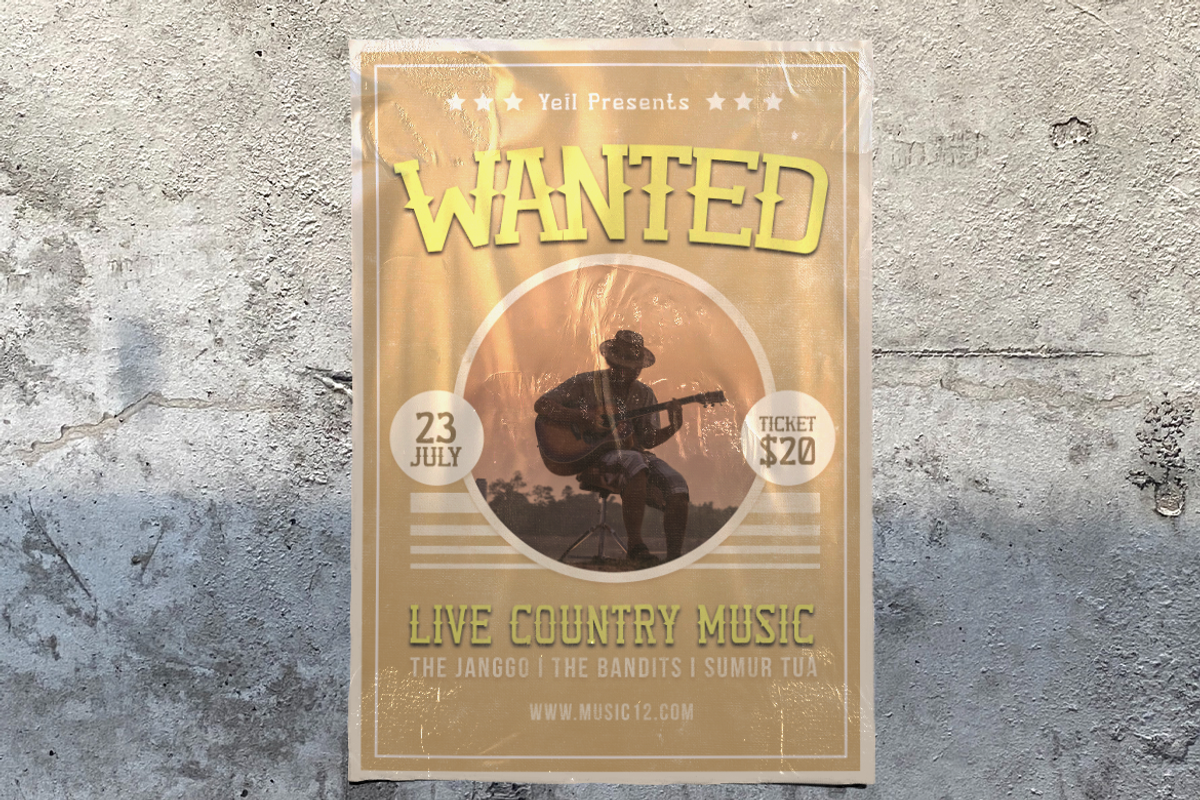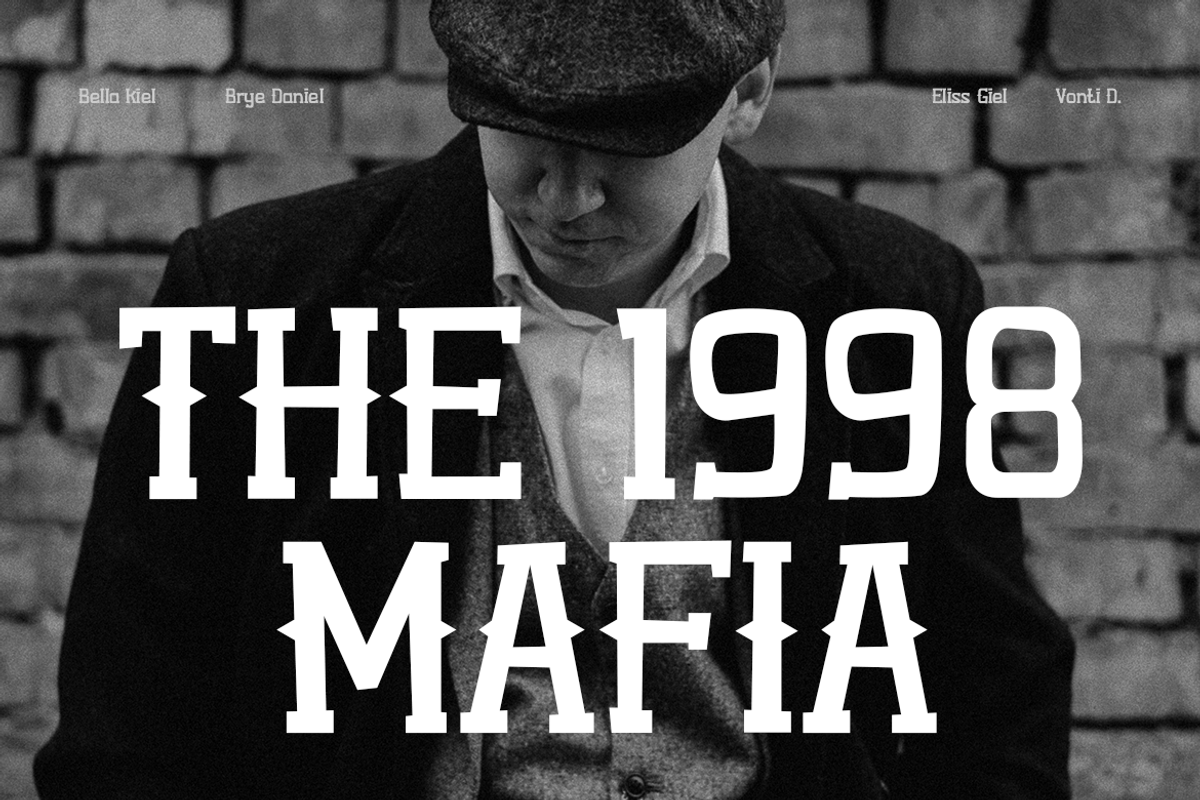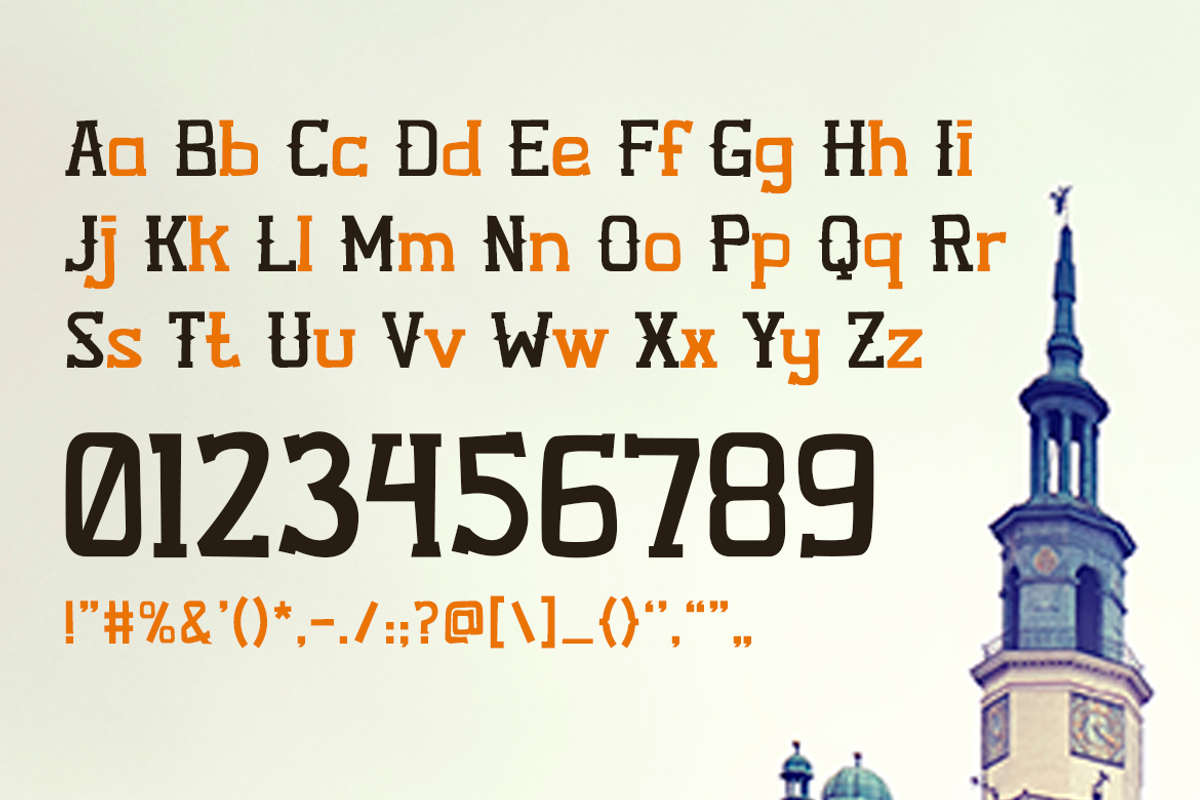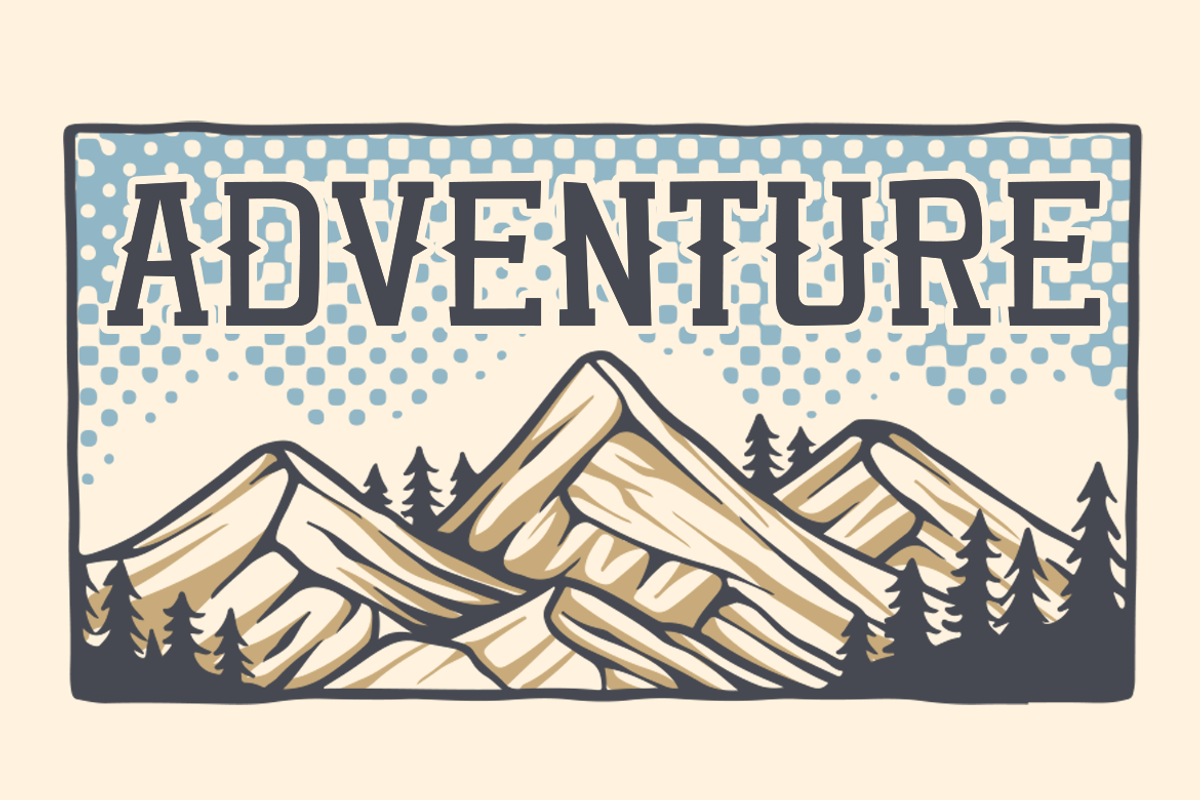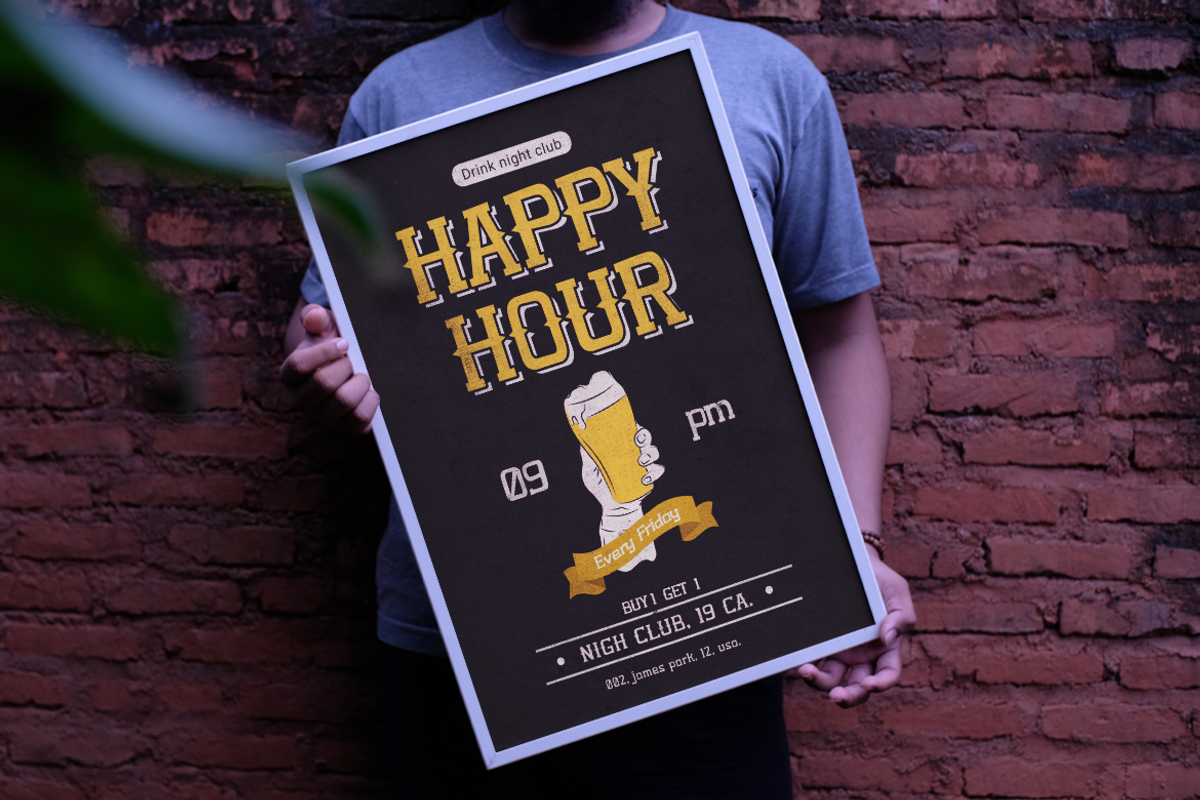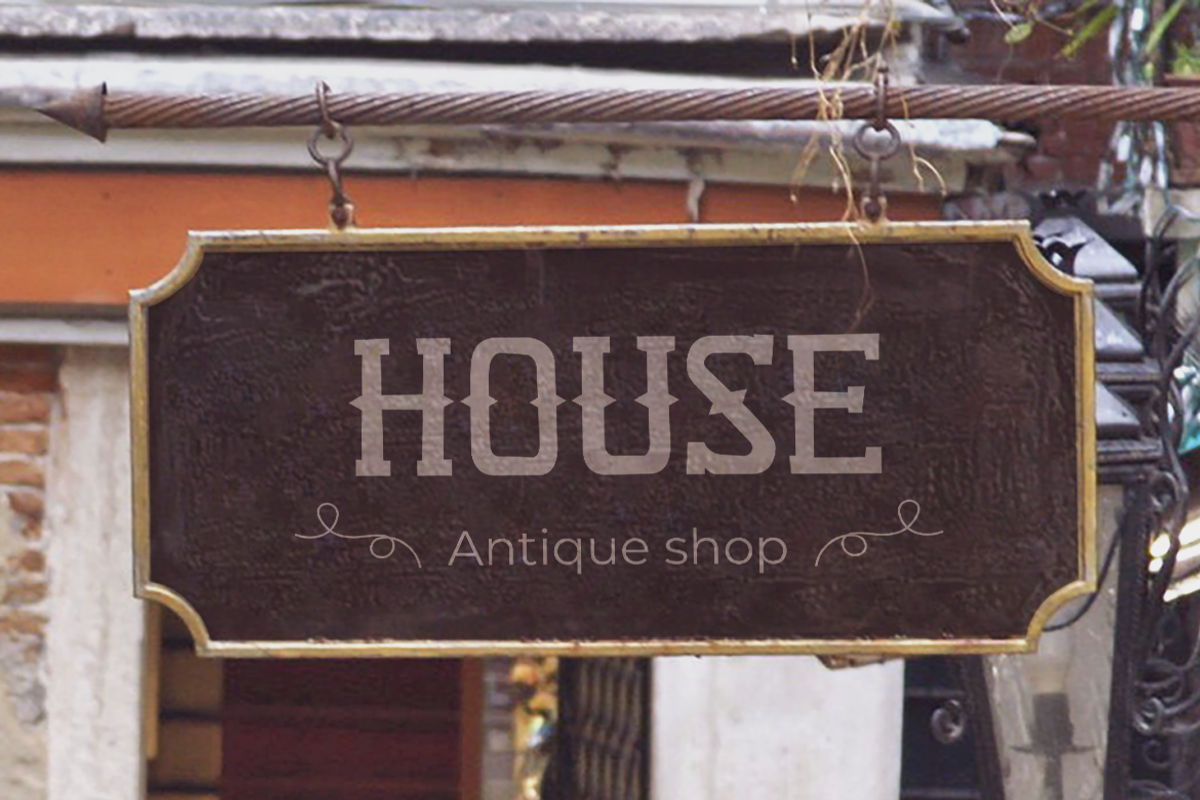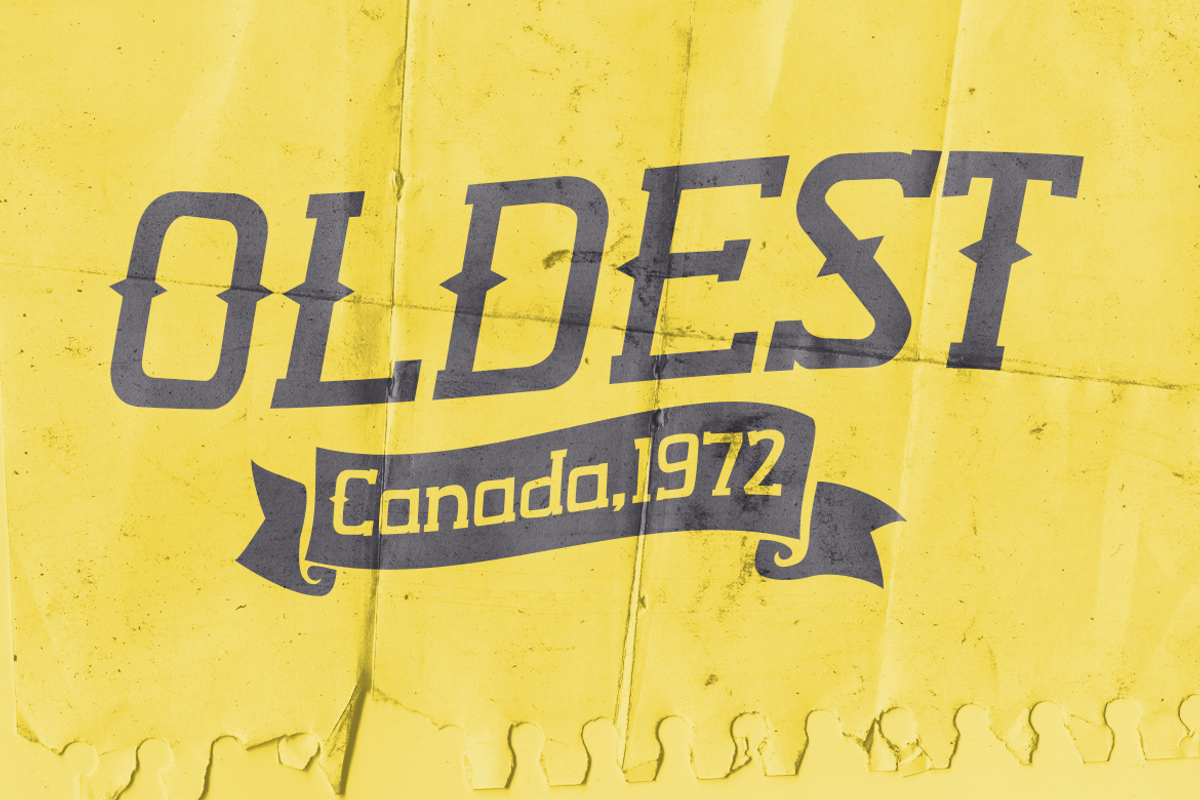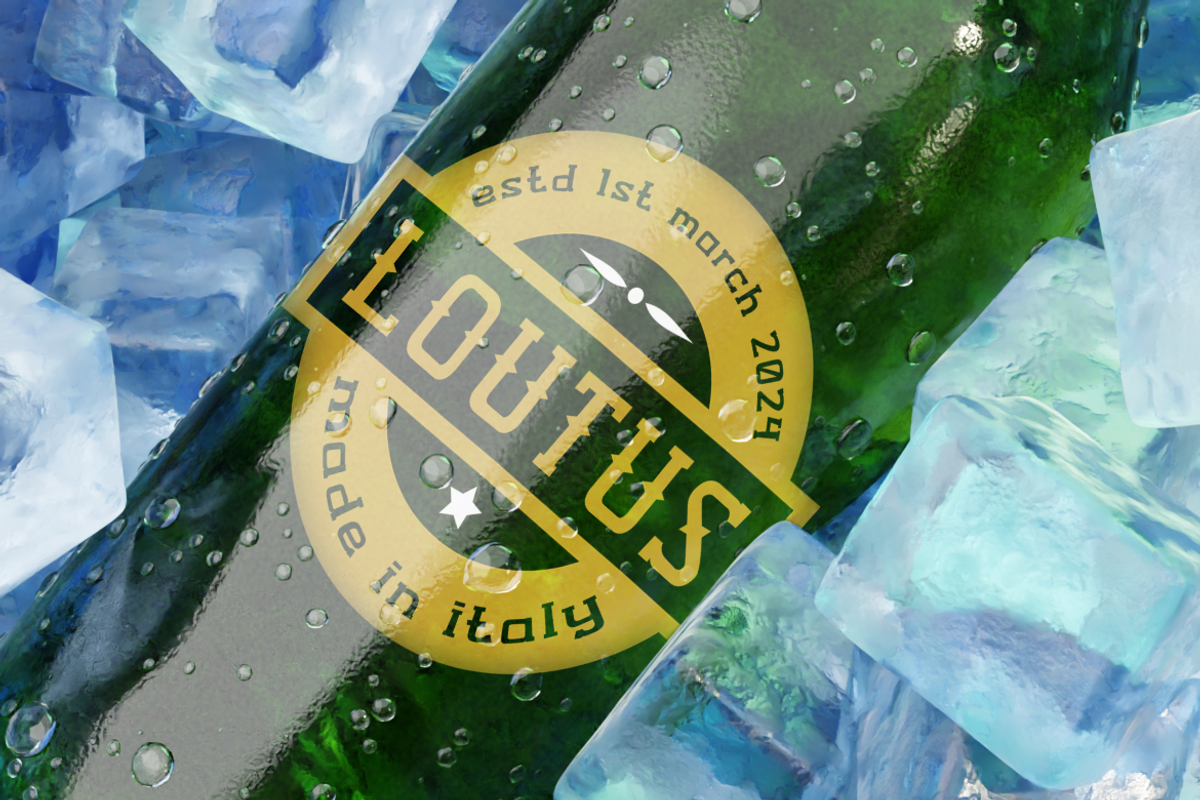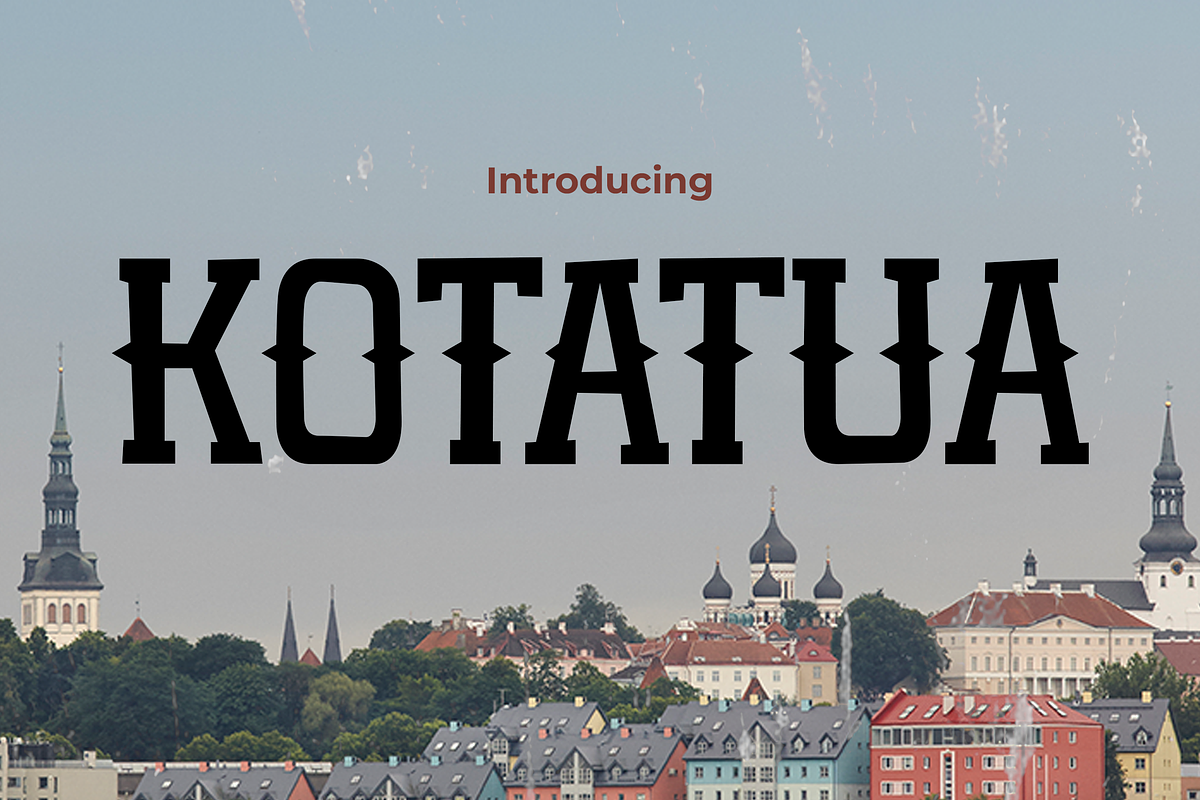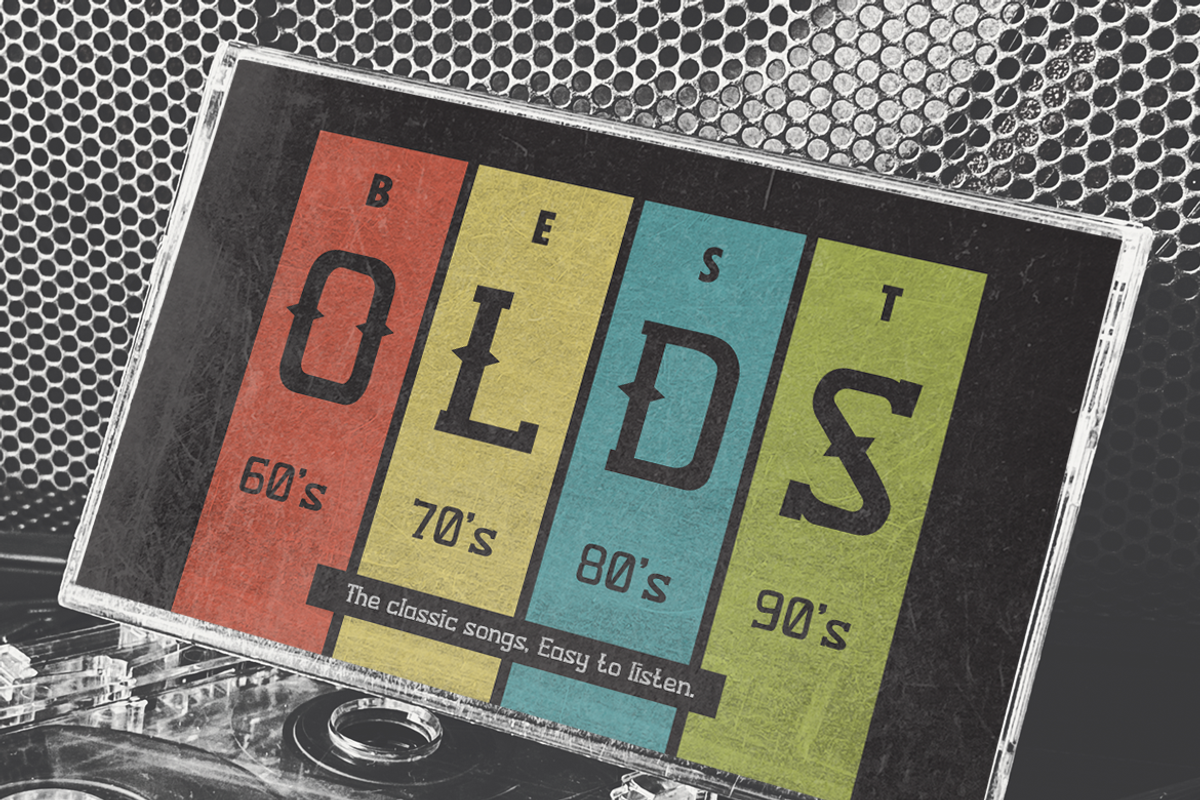
KOTATUA
KOTATUA Font – Vintage Expedition Typography
Dive into the nostalgic journey of KOTATUA Font, where the essence of vintage charm intertwines with the spirit of adventurous masculinity. This font exudes a rugged yet refined aura, reminiscent of an era when exploration and discovery were at the forefront of every man’s ambition. With its bold strokes and classic design elements, KOTATUA Font transports you to a time of bold explorers and daring adventurers, infusing your projects with an air of vintage authenticity and masculine allure. Whether you’re crafting labels for artisanal products, designing outdoor-themed posters, or creating vintage-inspired branding, KOTATUA Font adds a touch of adventurous spirit to every creative endeavor.
Embrace the thrill of the unknown and the allure of vintage masculinity with KOTATUA Font. Its timeless appeal and adventurous spirit make it the perfect choice for projects that seek to capture the essence of man’s exploration of the world. From travel brochures to outdoor apparel branding, KOTATUA Font brings a sense of rugged adventure and vintage charm to every design. Let KOTATUA Font be your companion on a journey of discovery and creativity, as you explore the endless possibilities of vintage-inspired design with a bold and adventurous twist.